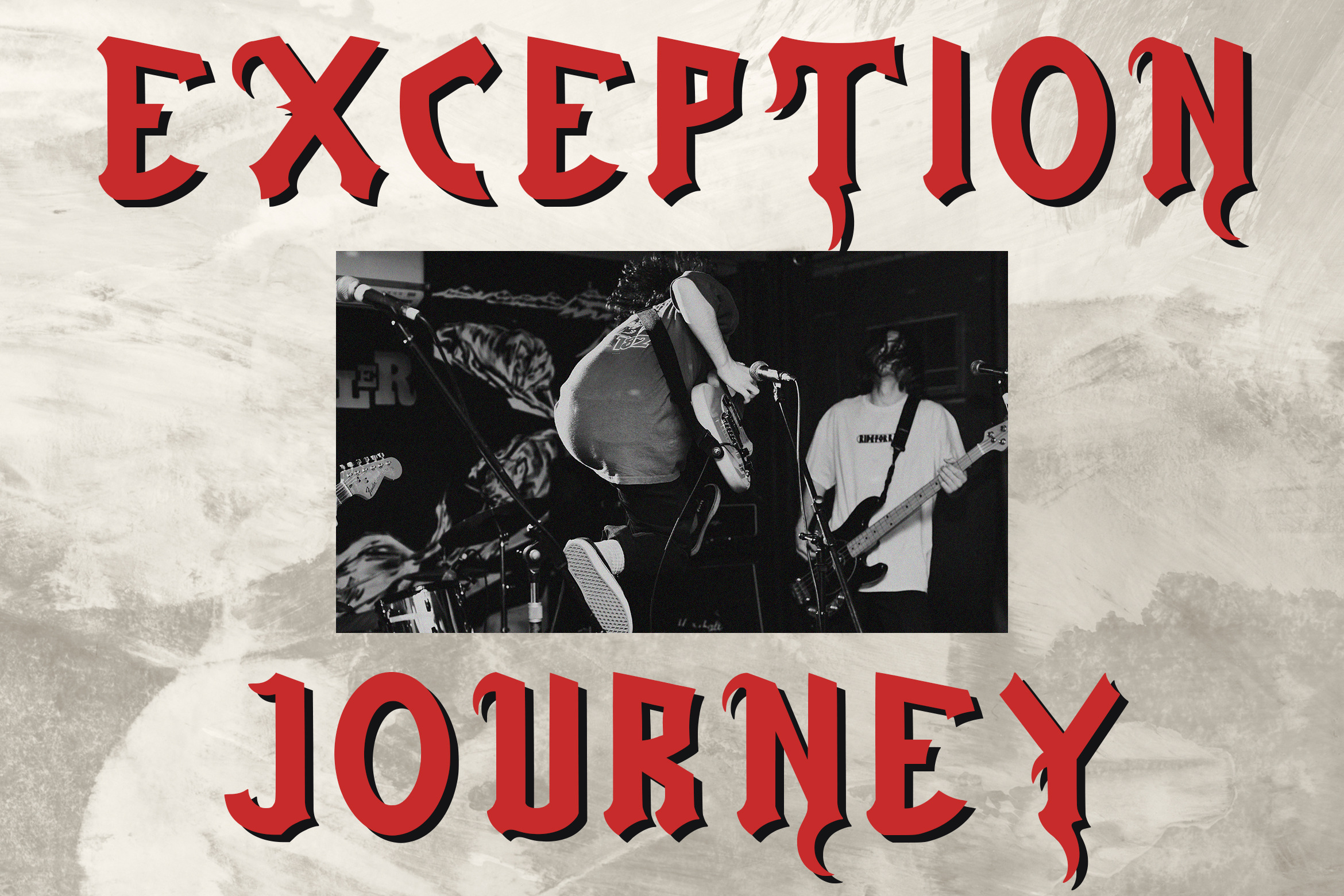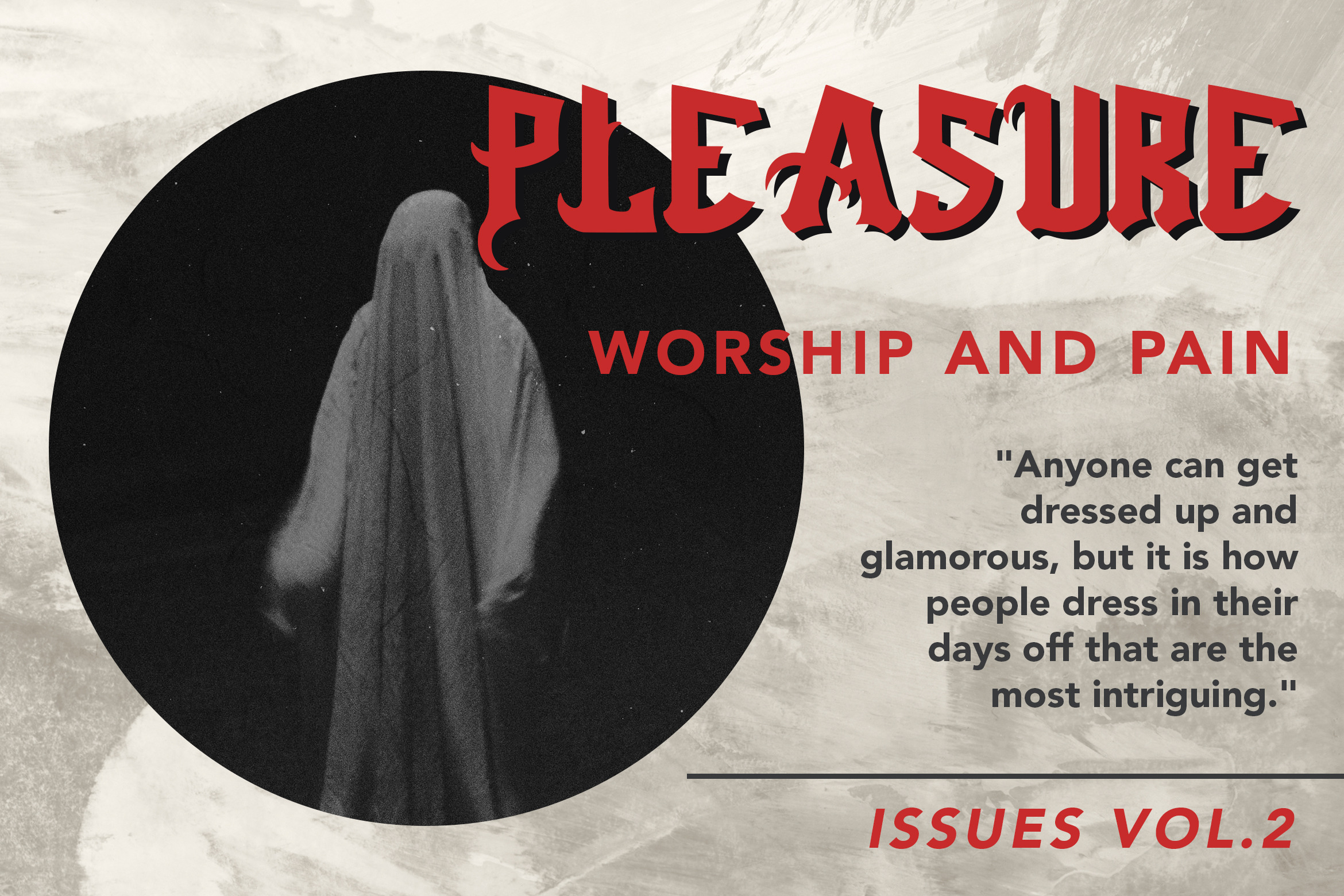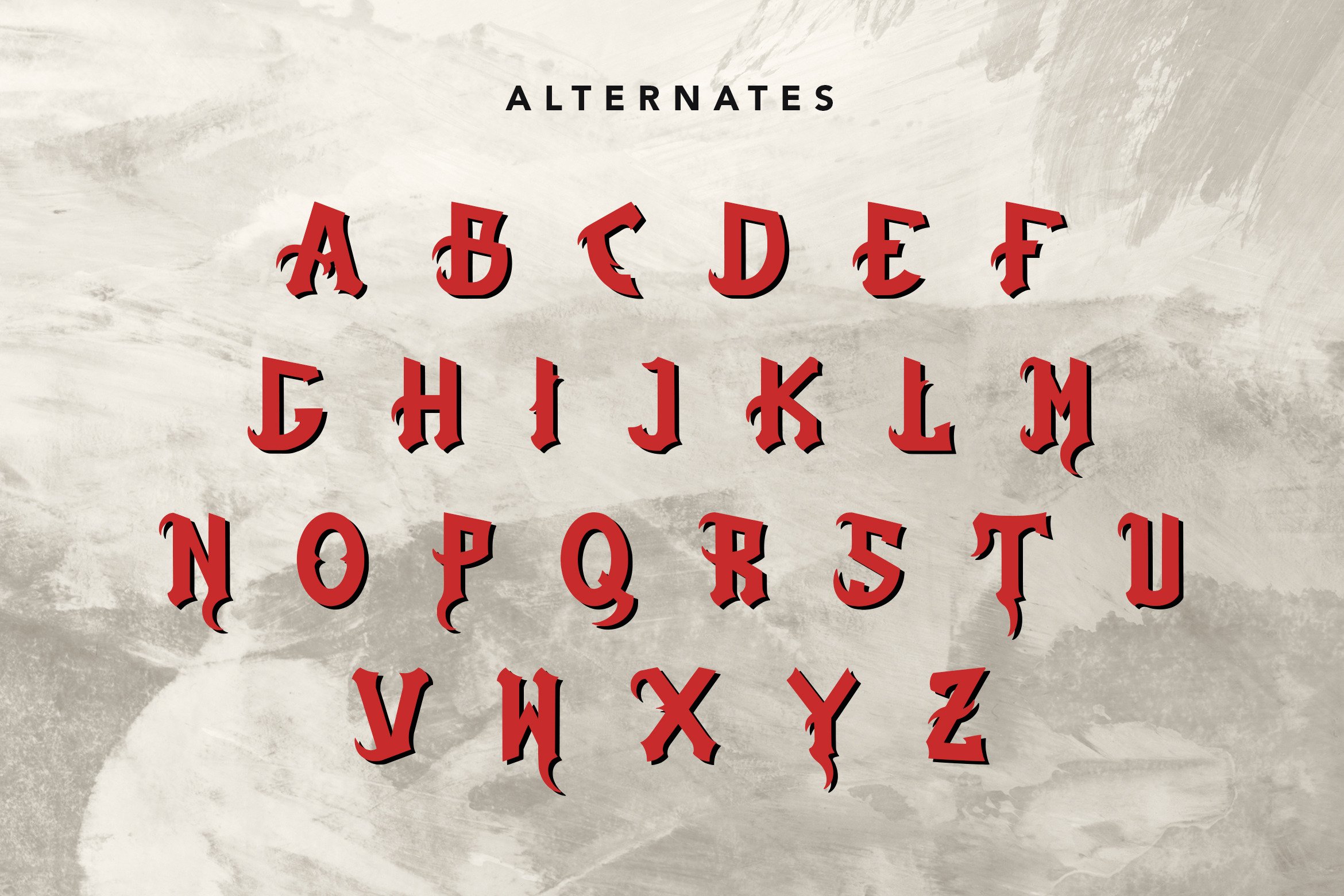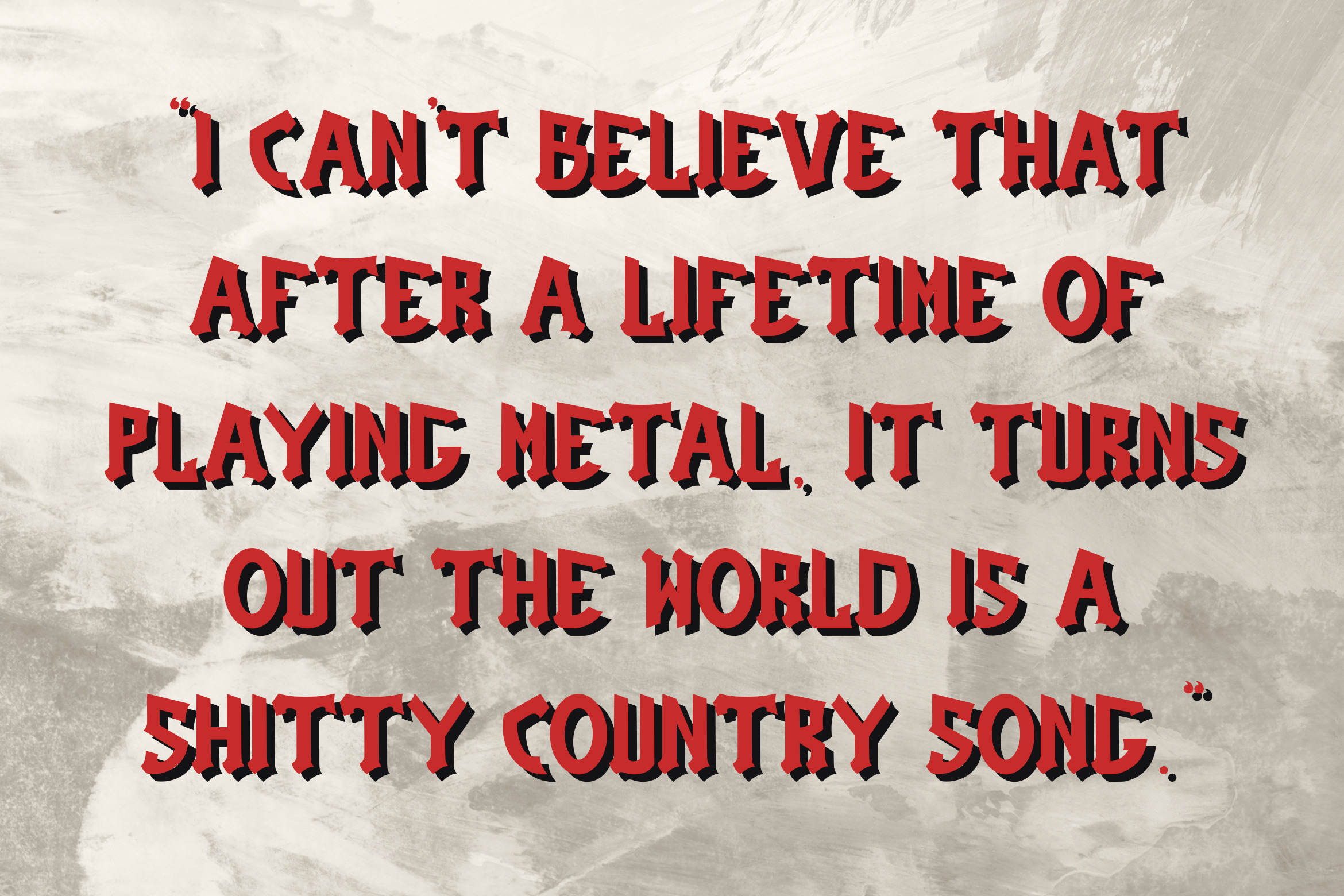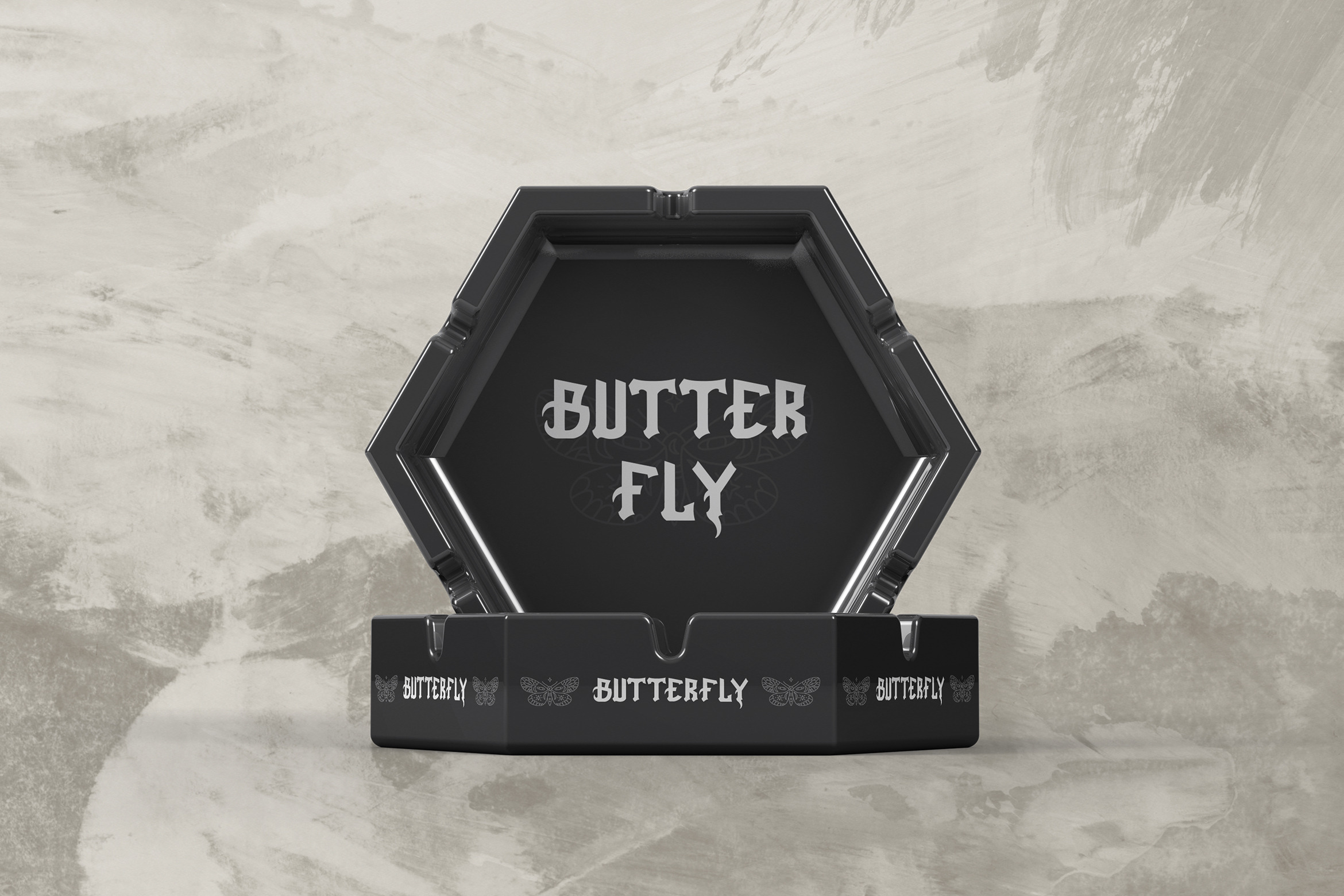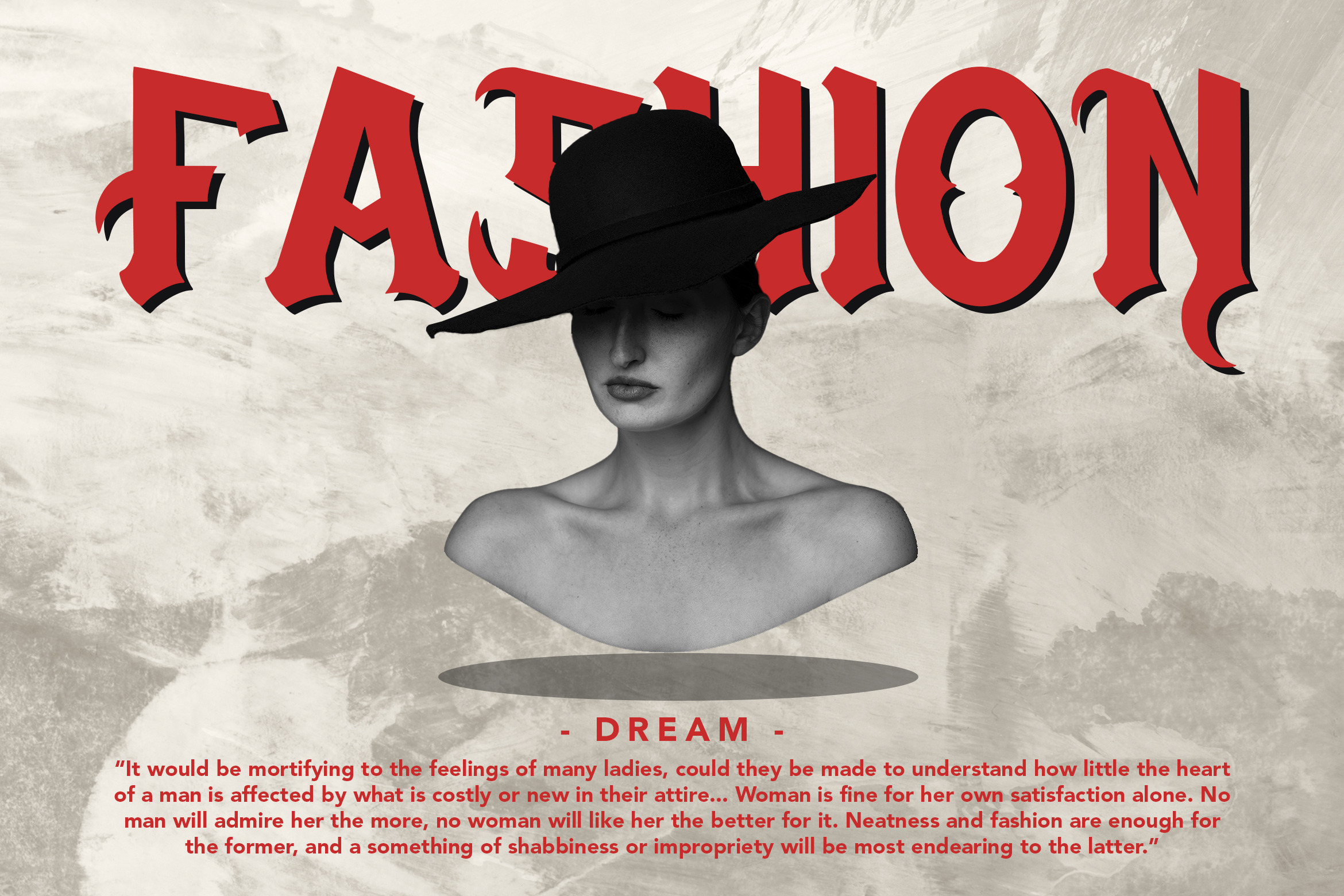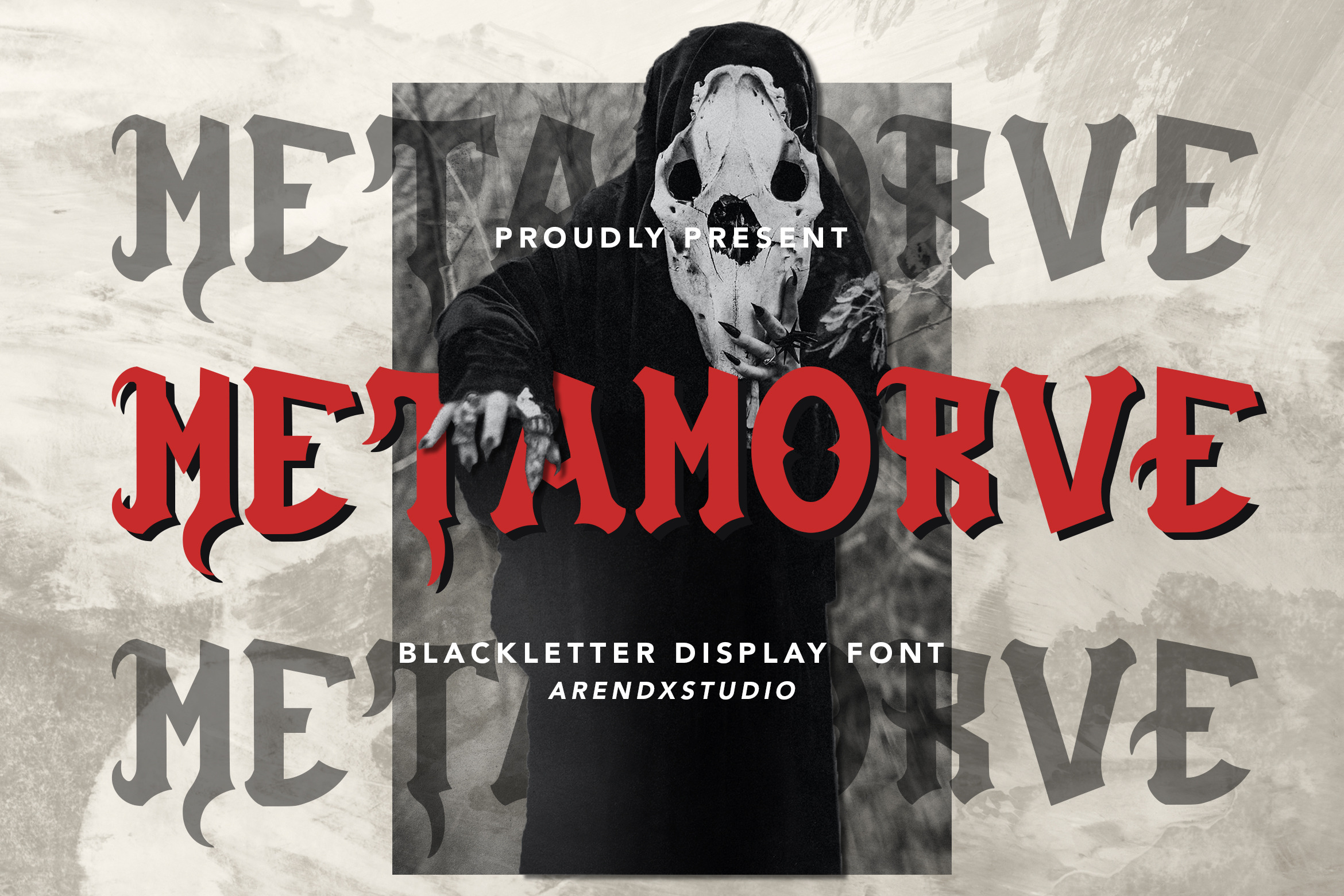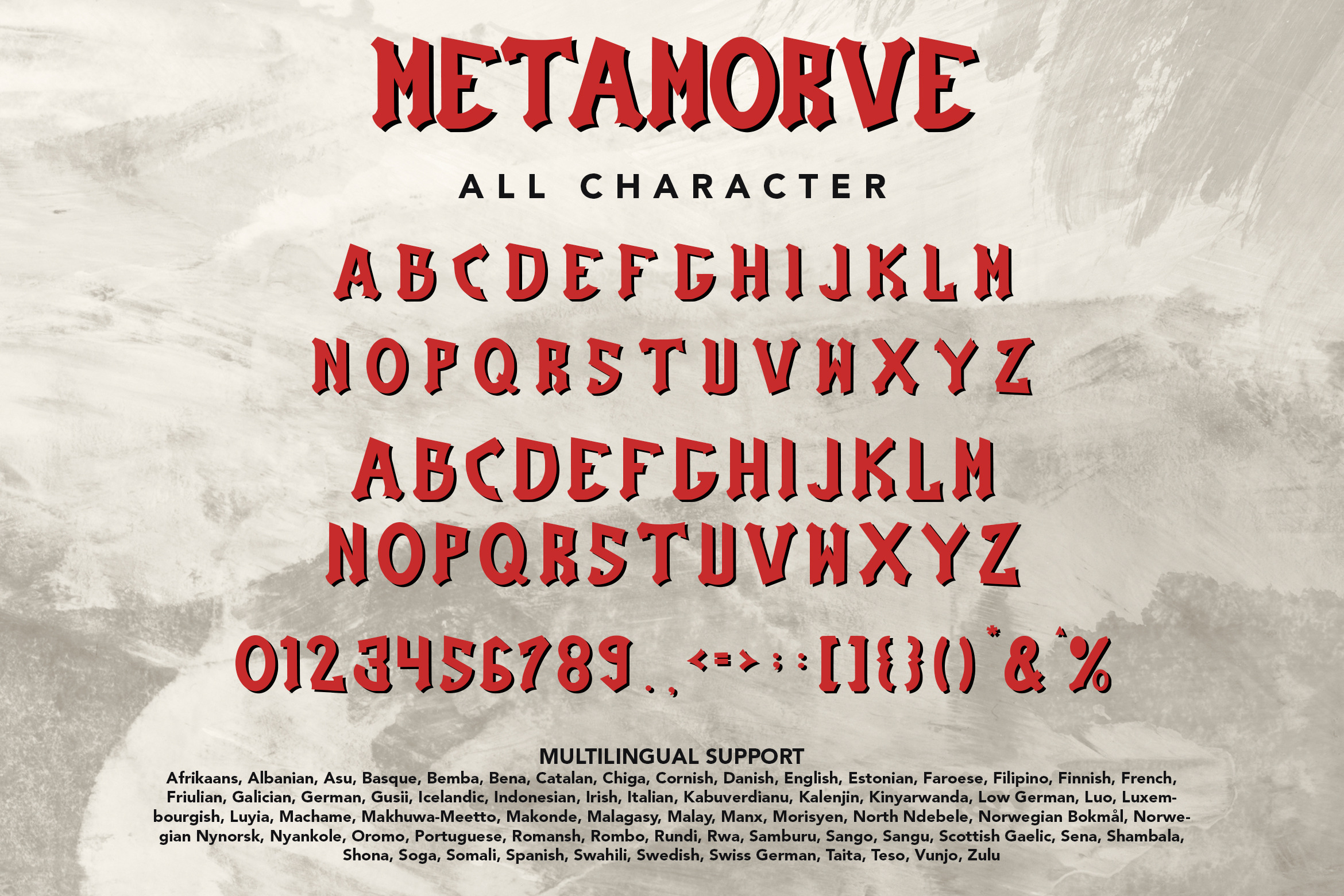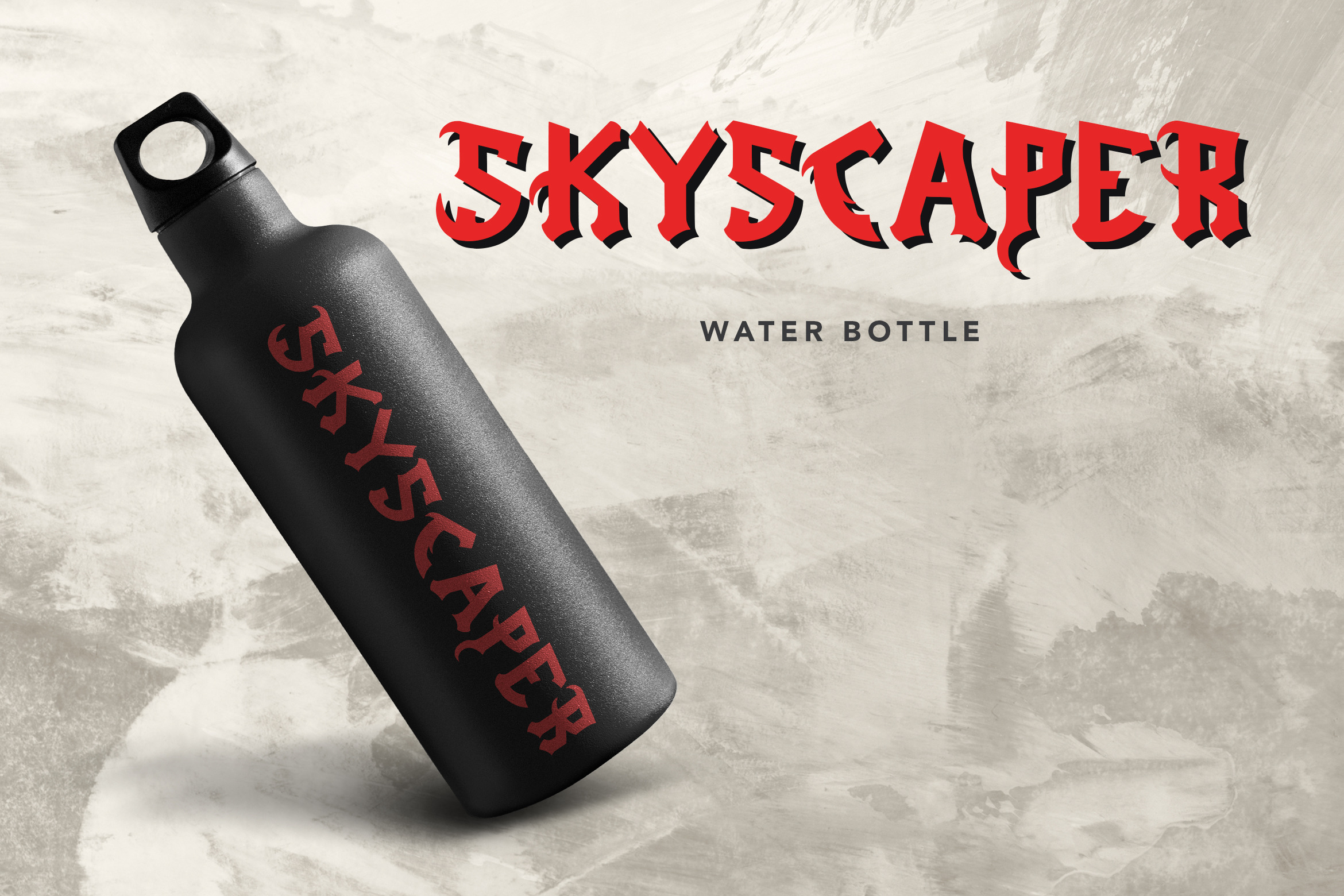
Metamorve - Blackletter Display Font by Arendxstudio | Creative Market
Metamorve - Blackletter Display Font is a display font that is inspired by gothic and horror style because its shape is very unique and is perfect for any project that you will use with this theme. Metamorve with opentype features such stylistic alternates, stylistic sets & ligatures good for logotype, poster, badge, book cover, tshirt design, packaging and any more. Features : 1.Uppercase & Lowercase 2.Multilingual support 3.Number 4.Symbol 5.Punctuation. 6.Extra Dingbat 7.Support in Mac and Windows OS -Support in design application (photoshop, illustrator, and more) There it is! I really hope you enjoy it - comments & likes are always welcome and accepted. More importantly, don't hesitate to send a message if you have a problem or question. | Metamorve - Blackletter Display Font | Arendxstudio